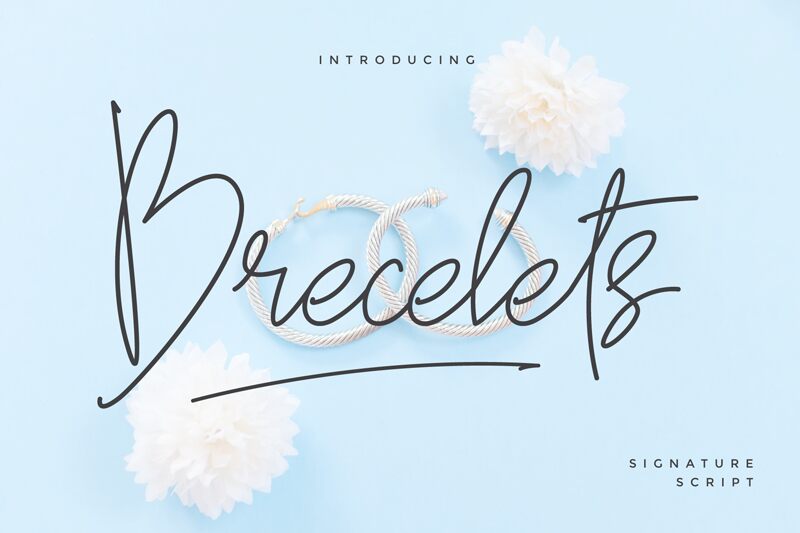
BreceletsDemo
Brecelets Signature Font also includes full set of uppercase and lowercase letters, numerals, punctuation, swashes. It would be perfect for all types of printing techniques, you can do embroidery, laser cut, gold foil, etc.